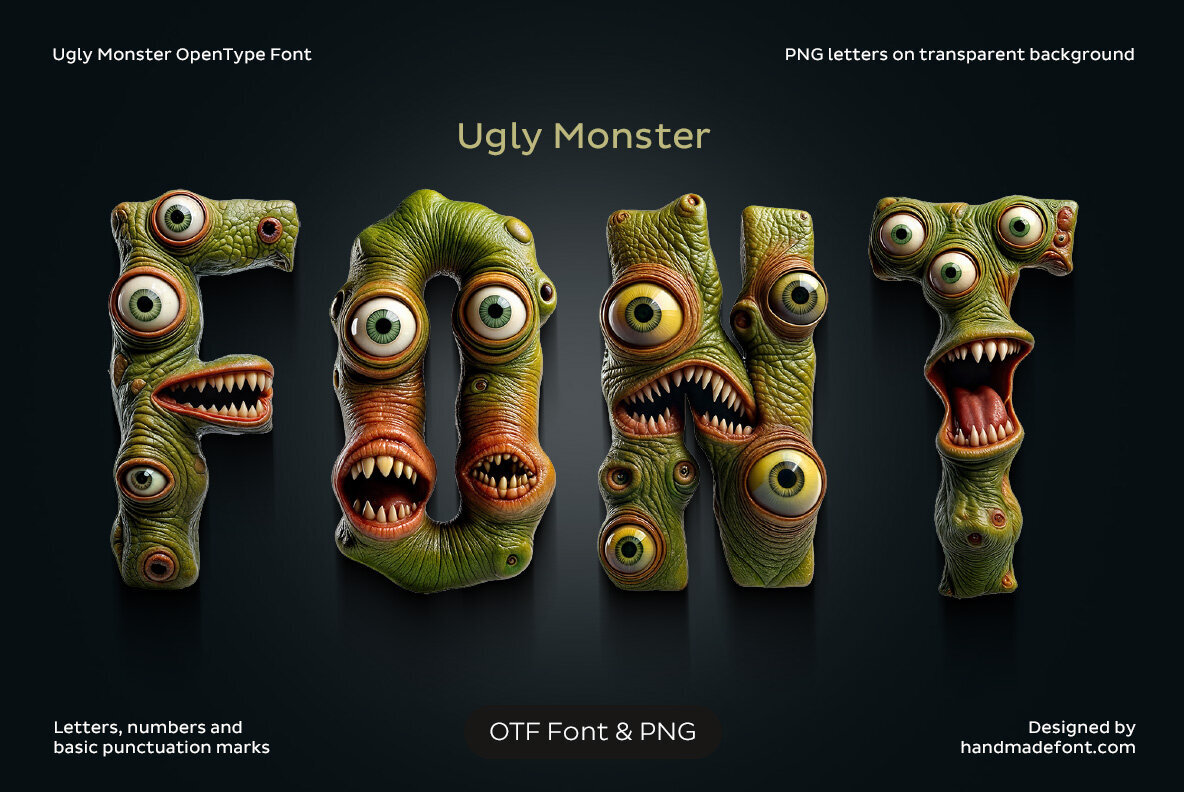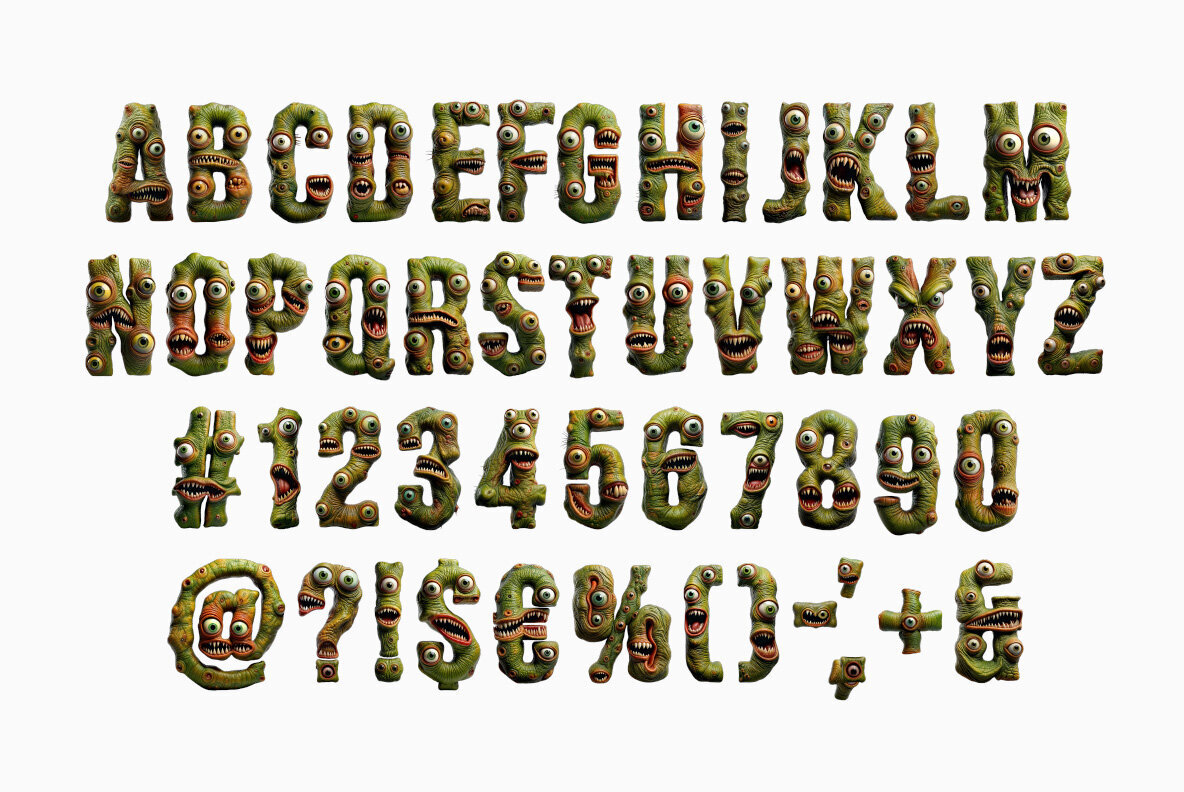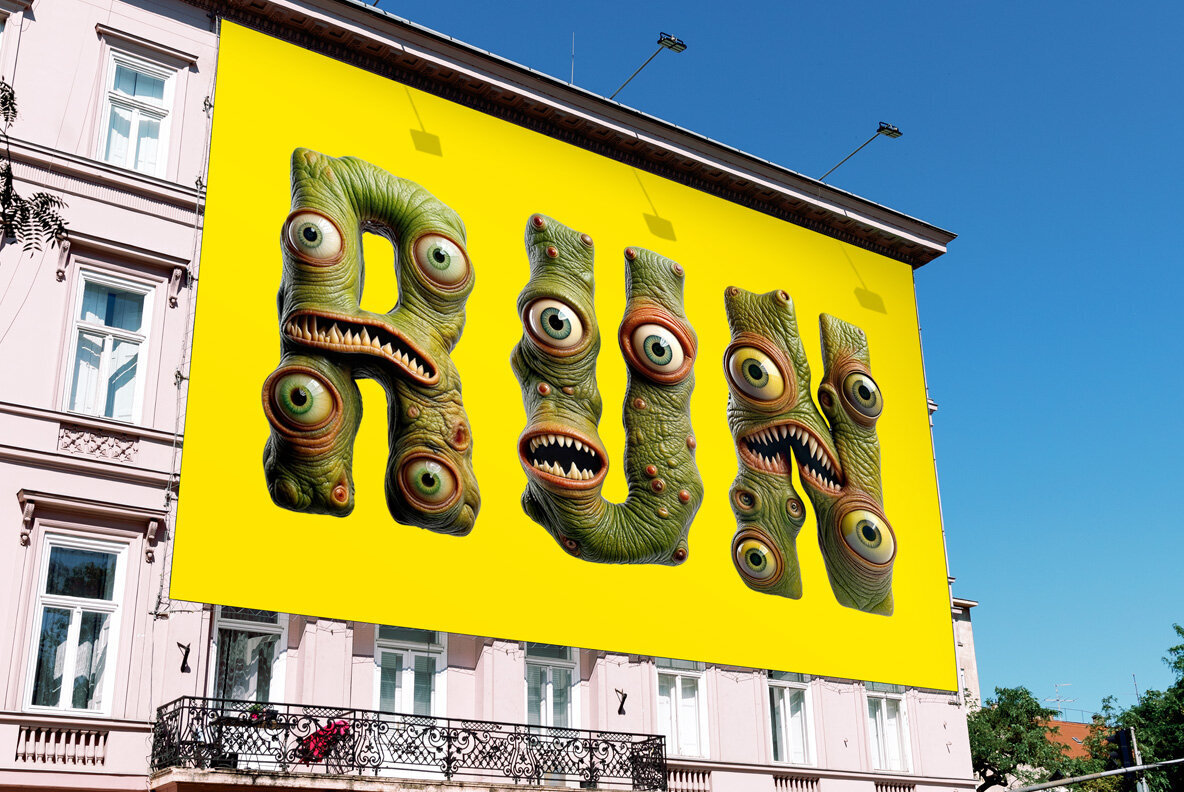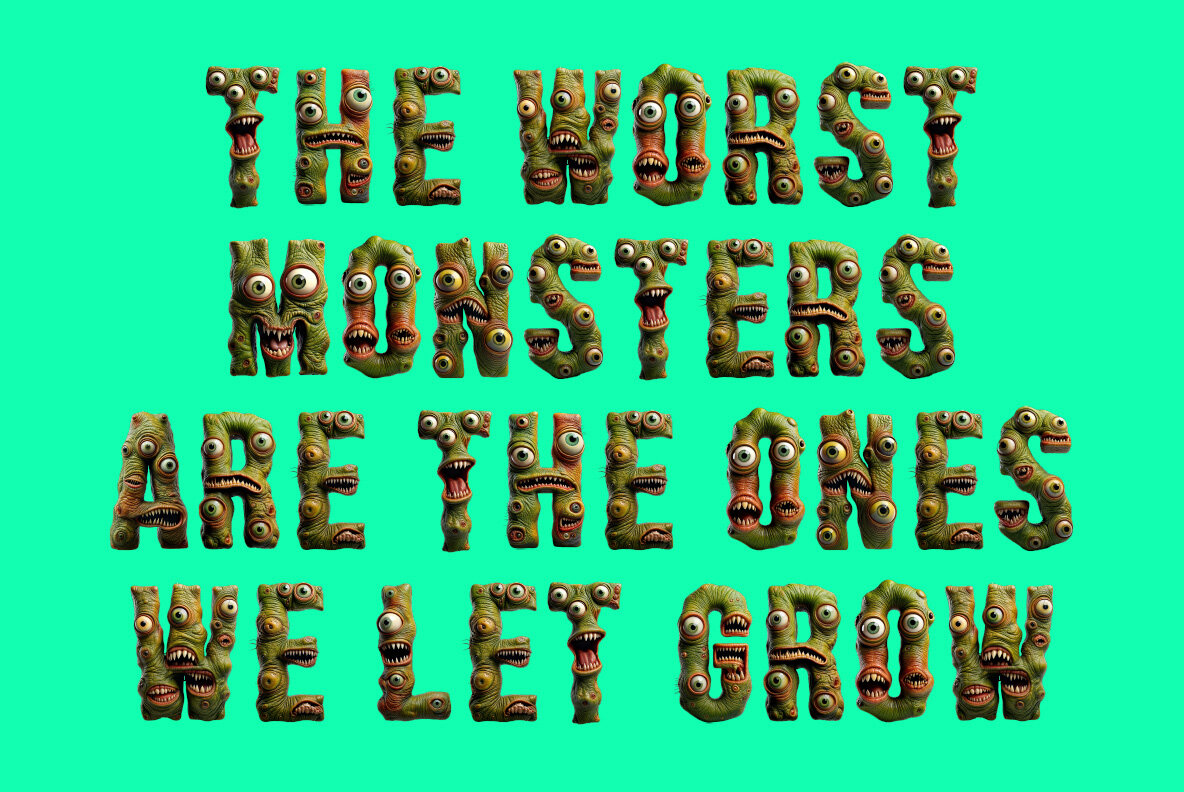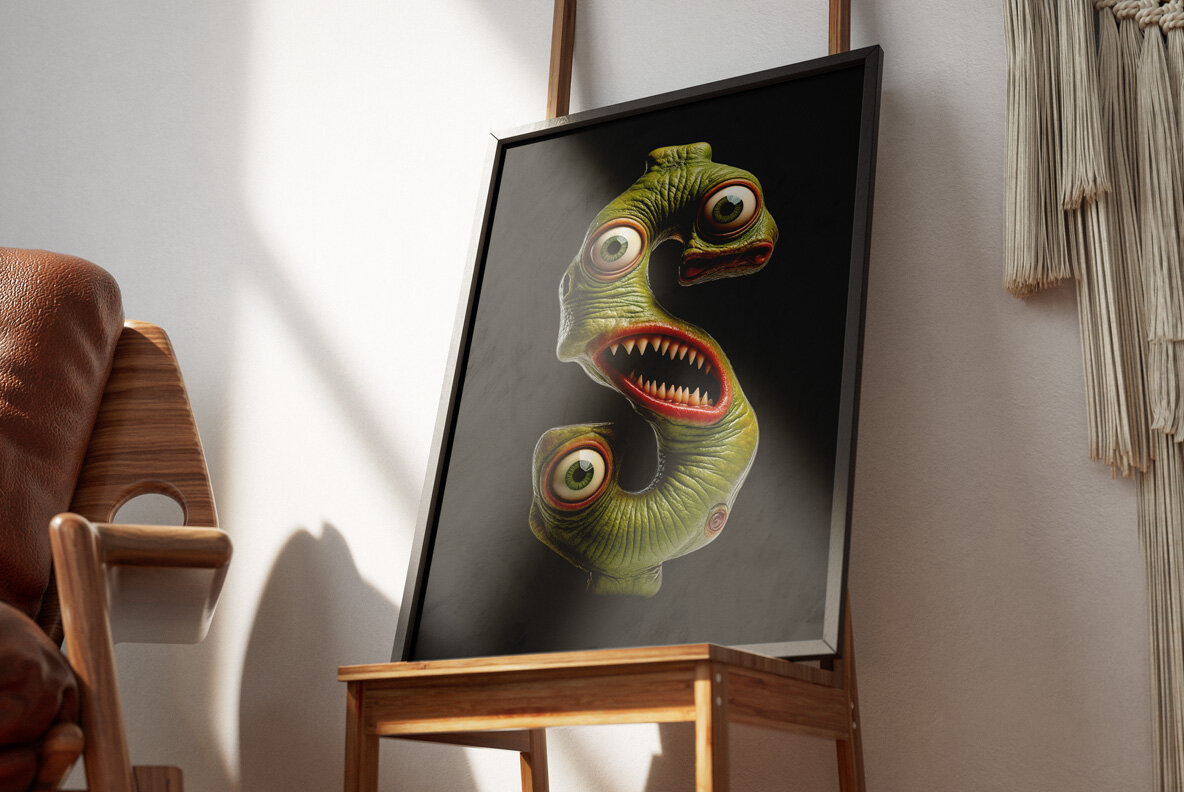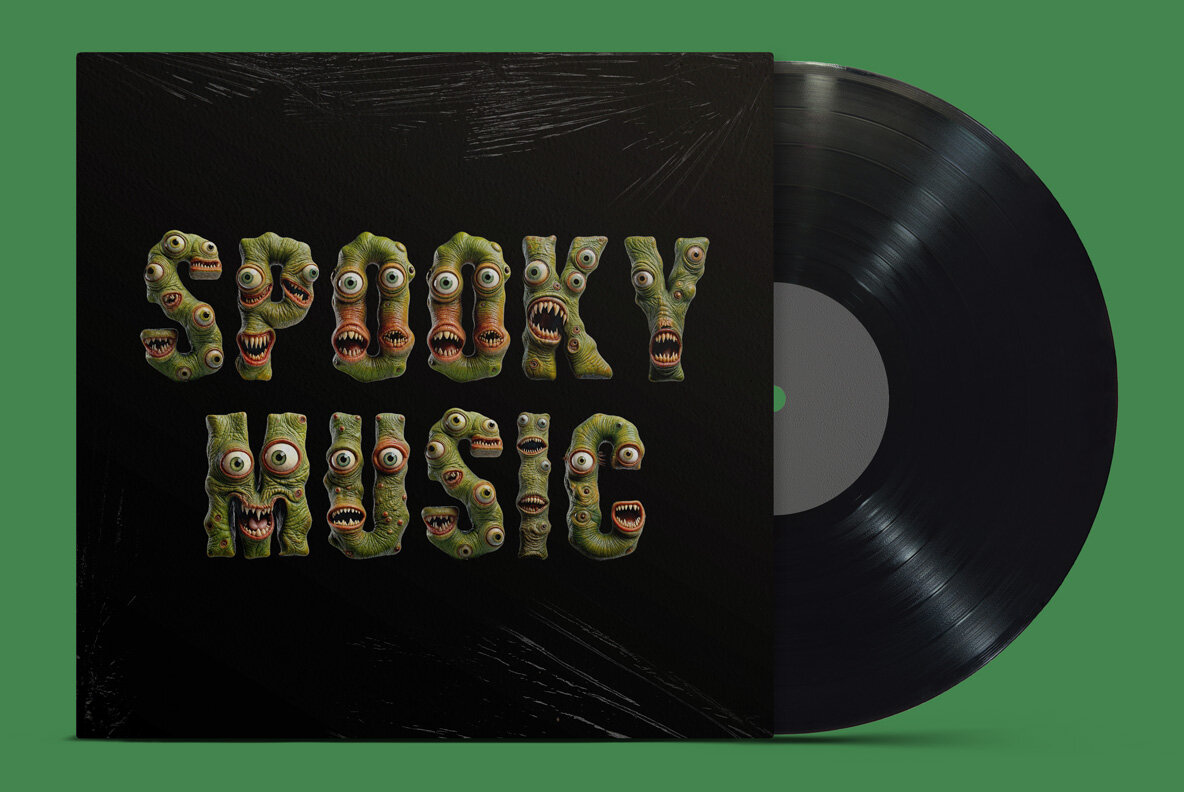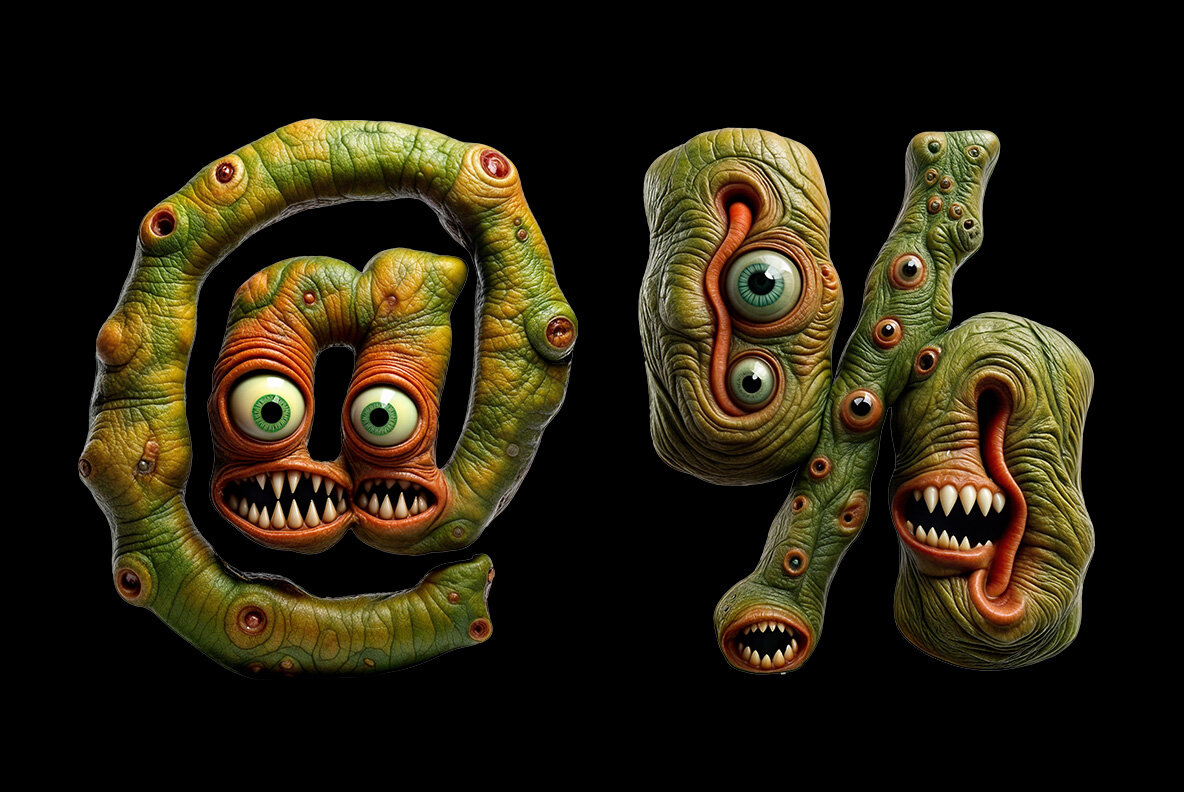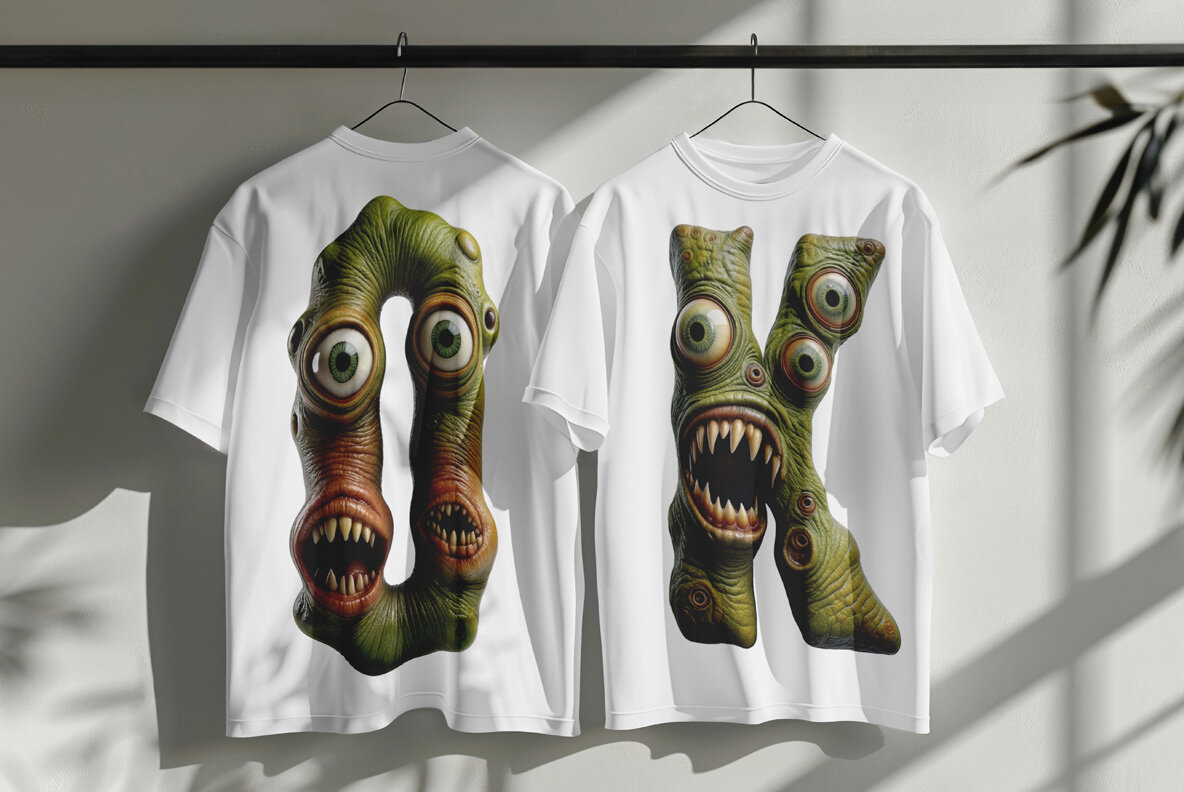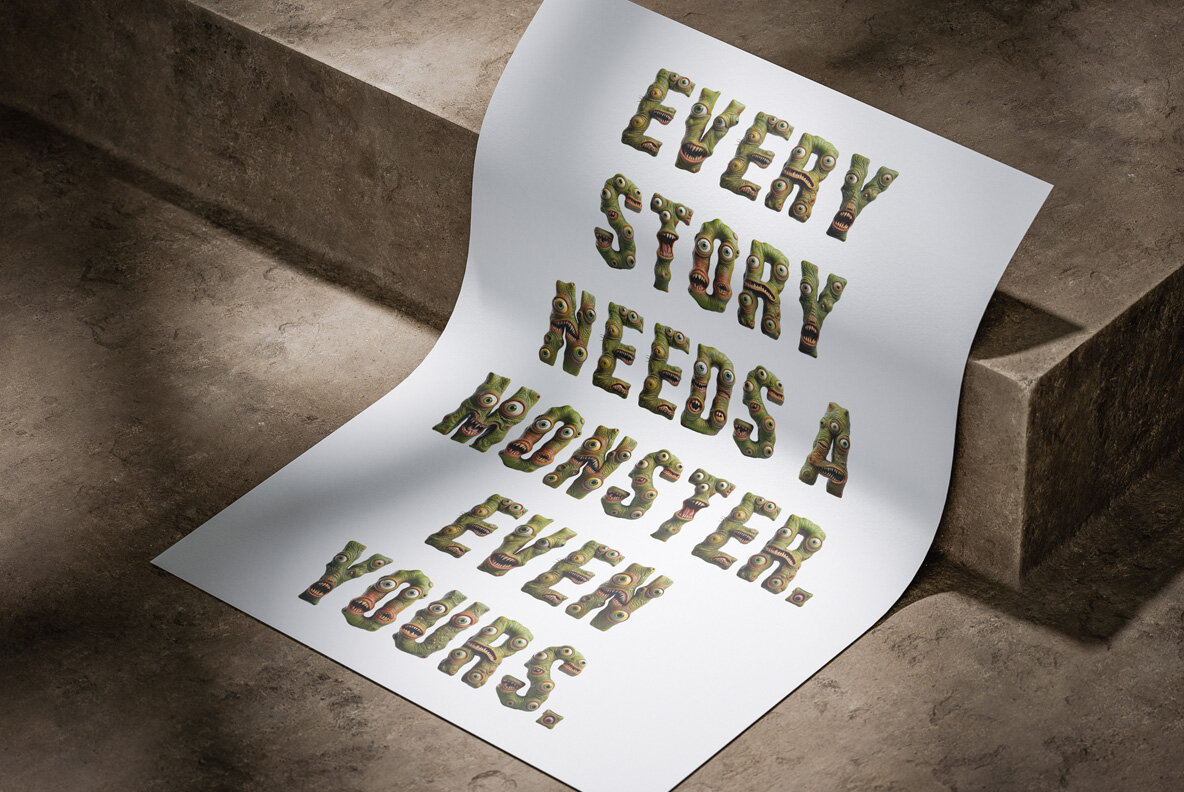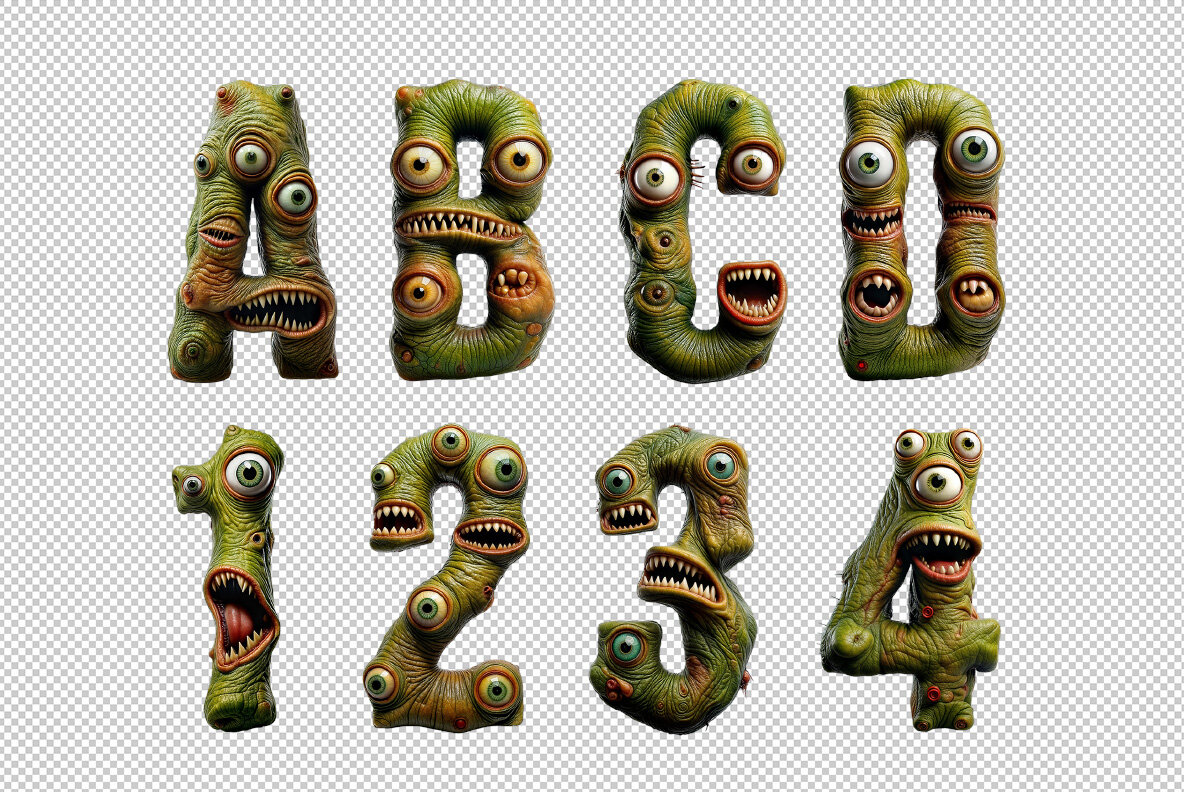
The Ugly Monster Font is not your average typeface. It transforms each letter into a lively, cartoonish creature with grotesque textures, oversized eyeballs, sharp teeth, and freaky expressions. Featuring a slimy green hue and exaggerated 3D details, this typeface is ideal for Halloween themes, horror games, spooky kids' parties, or any project that demands a mix of eerie and playful. Designed with a sense of humor, it makes ordinary words parade in hilariously monstrous style, sure to capture attention. Perfect for those daring to go monstrous in design!Ugly Monster Font